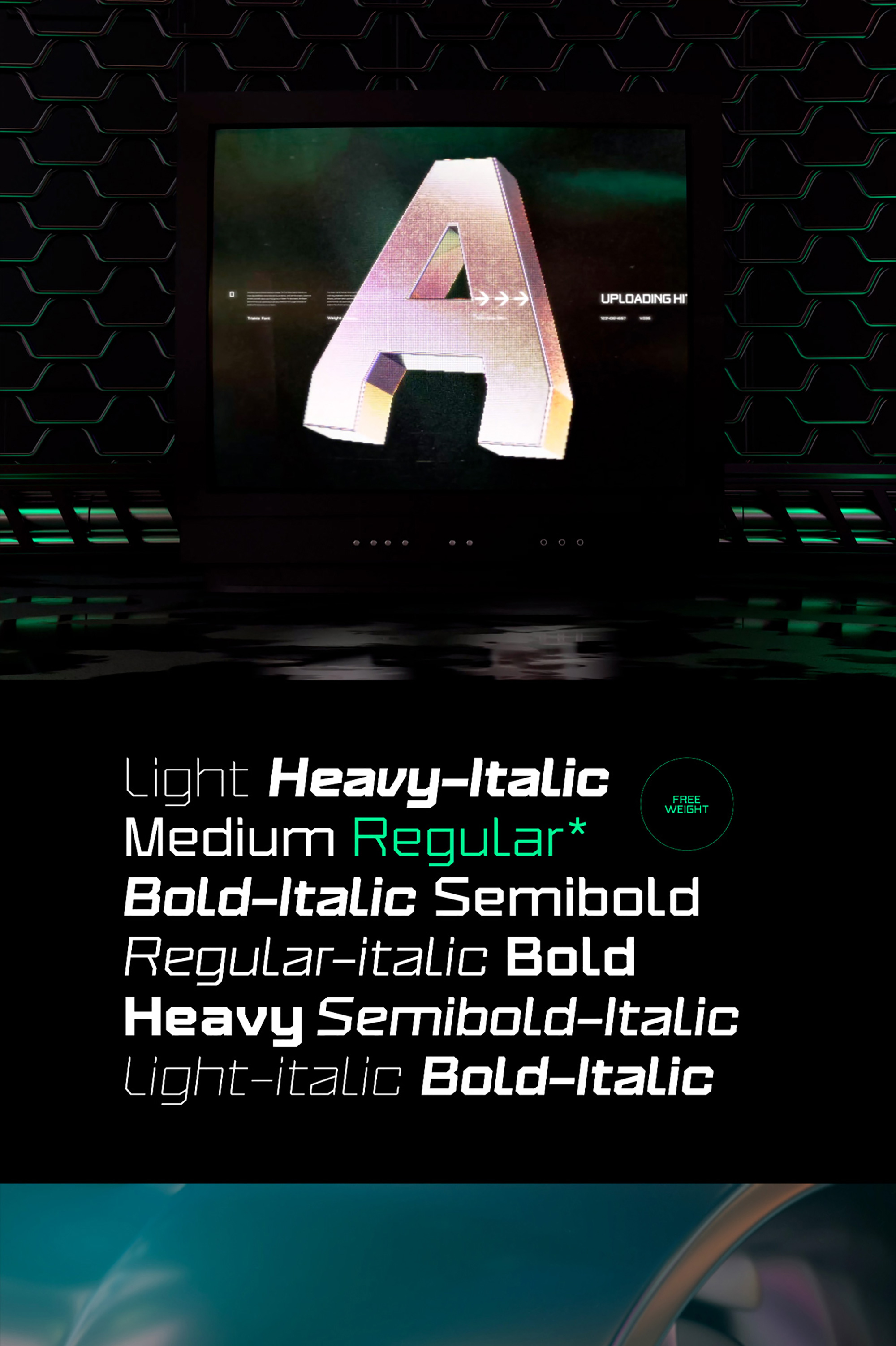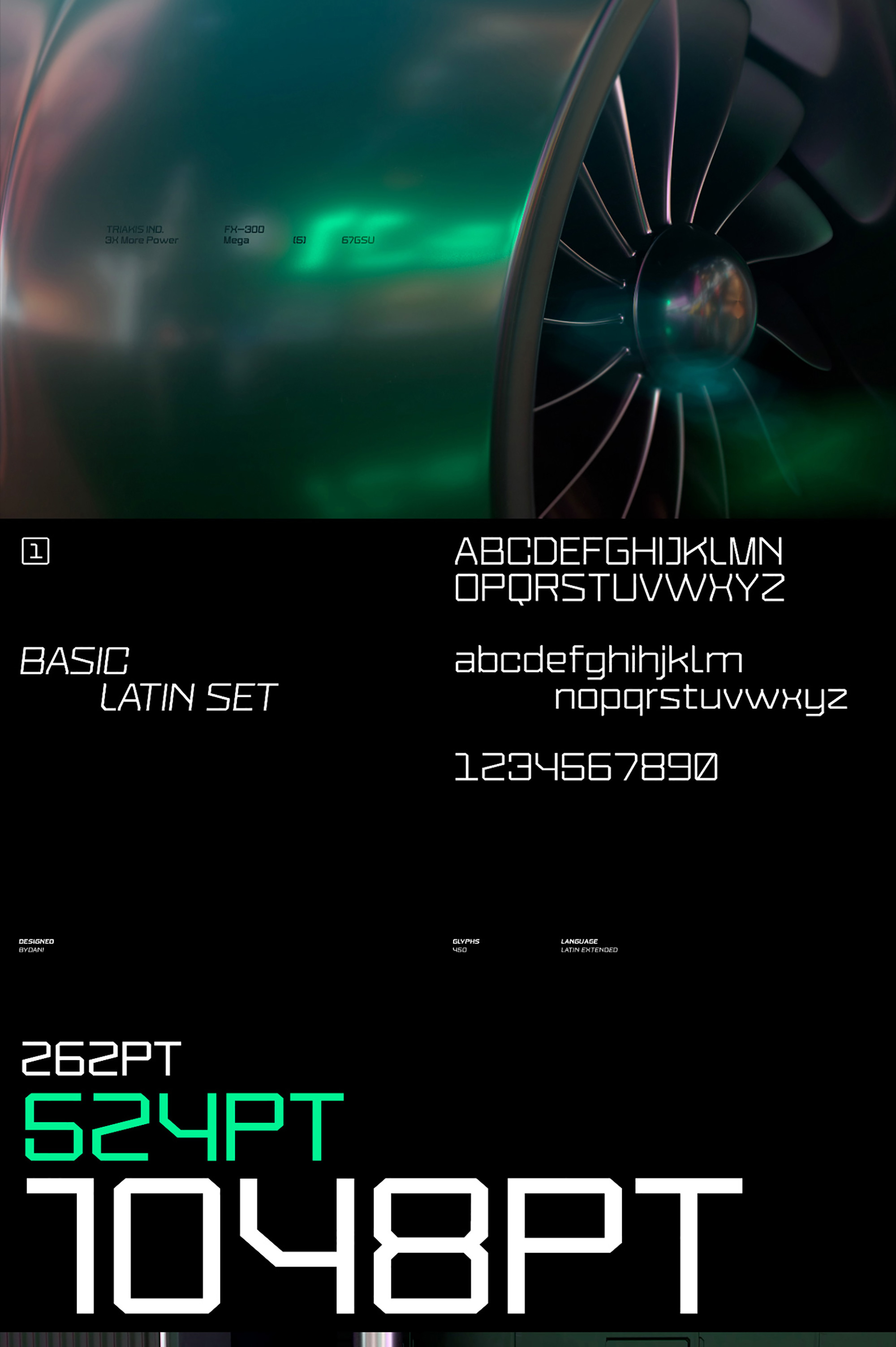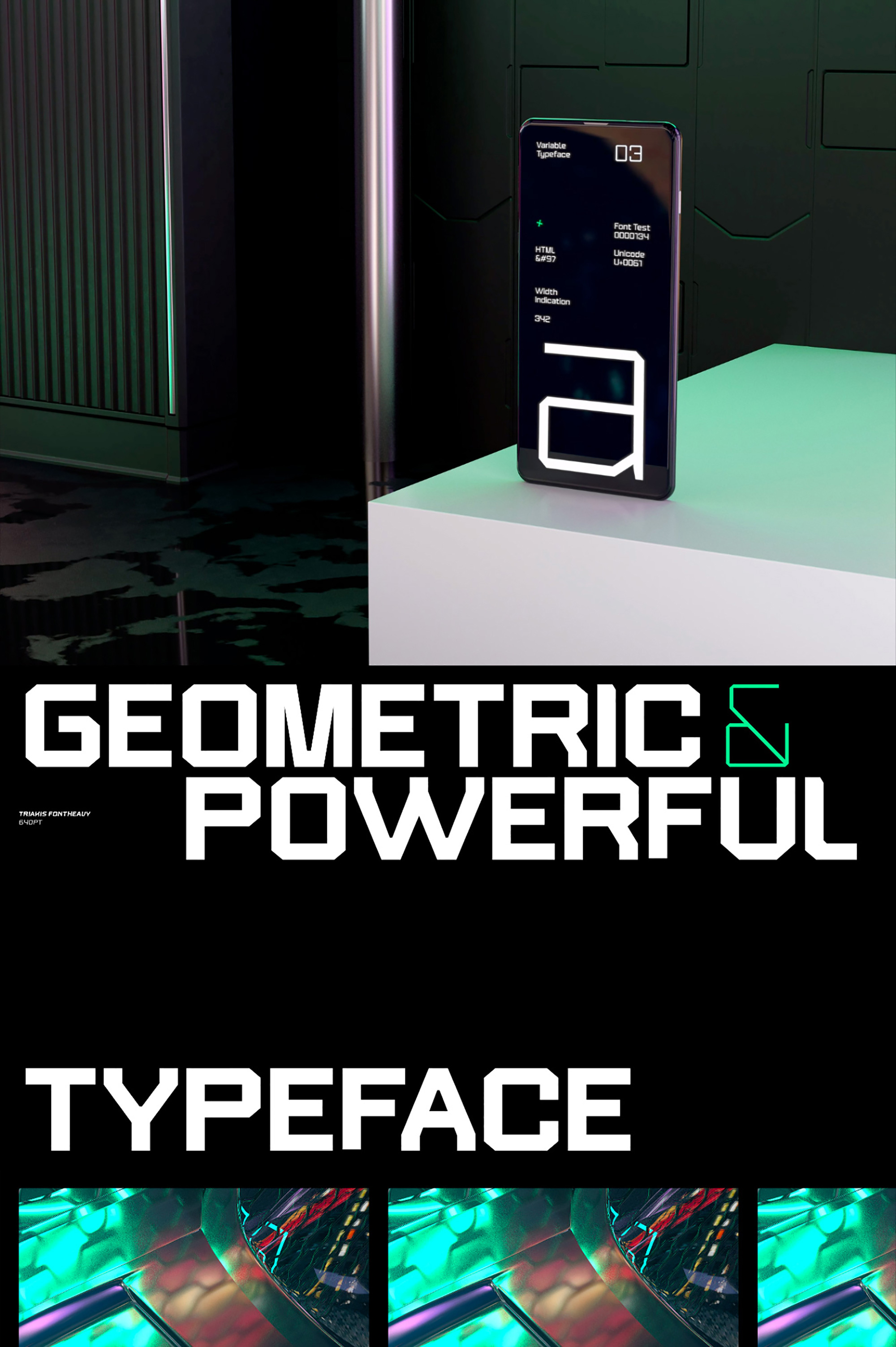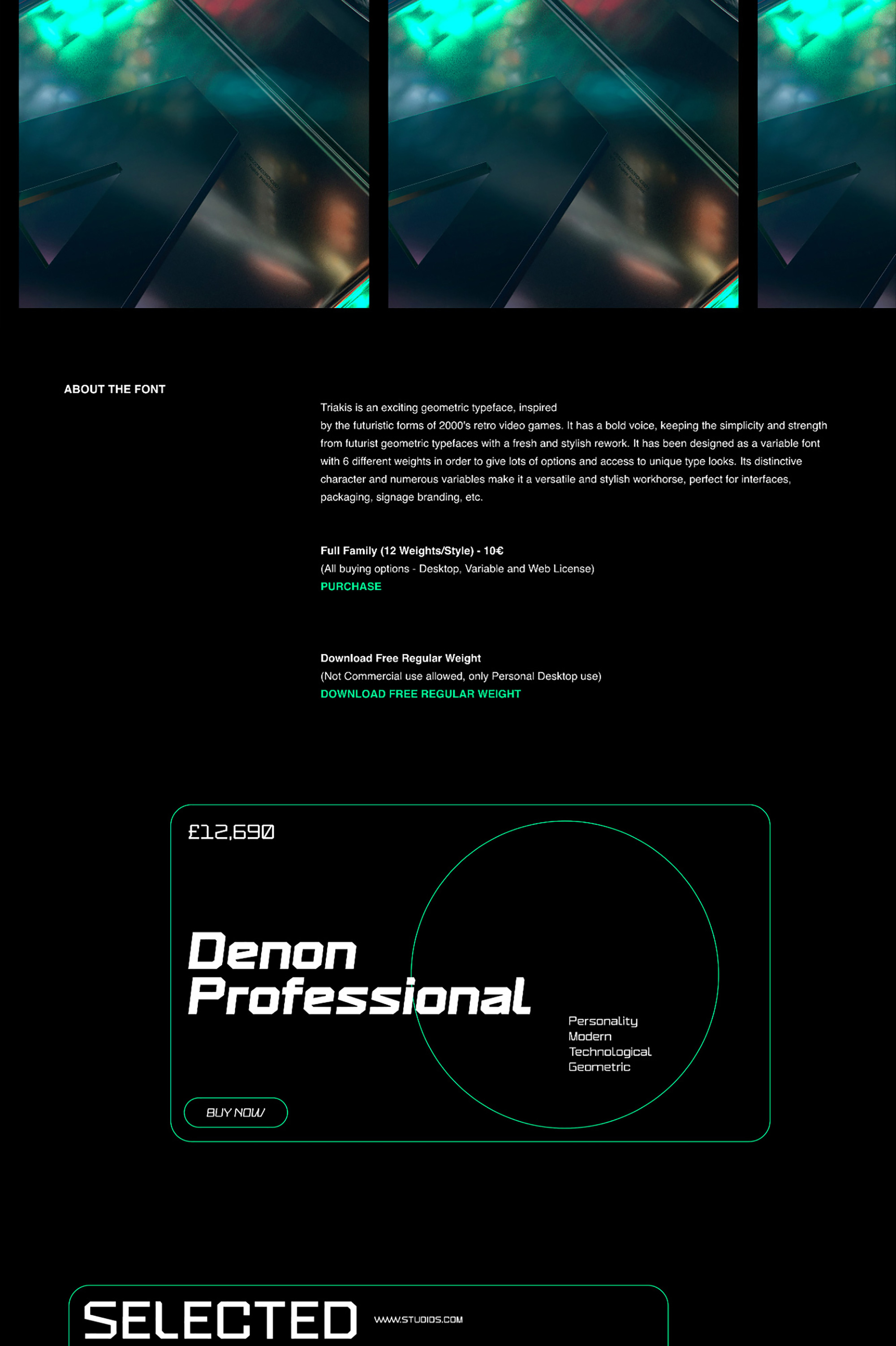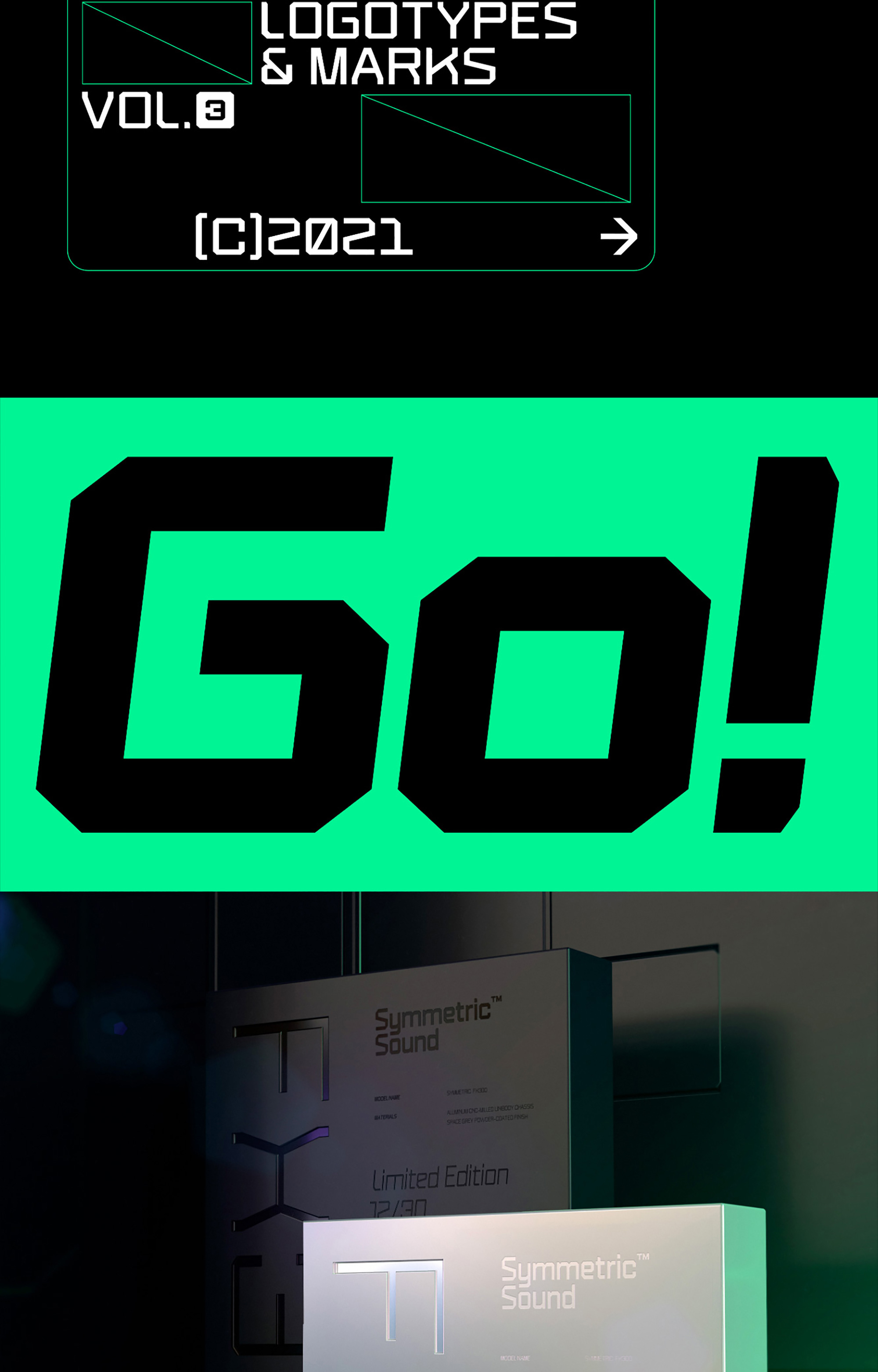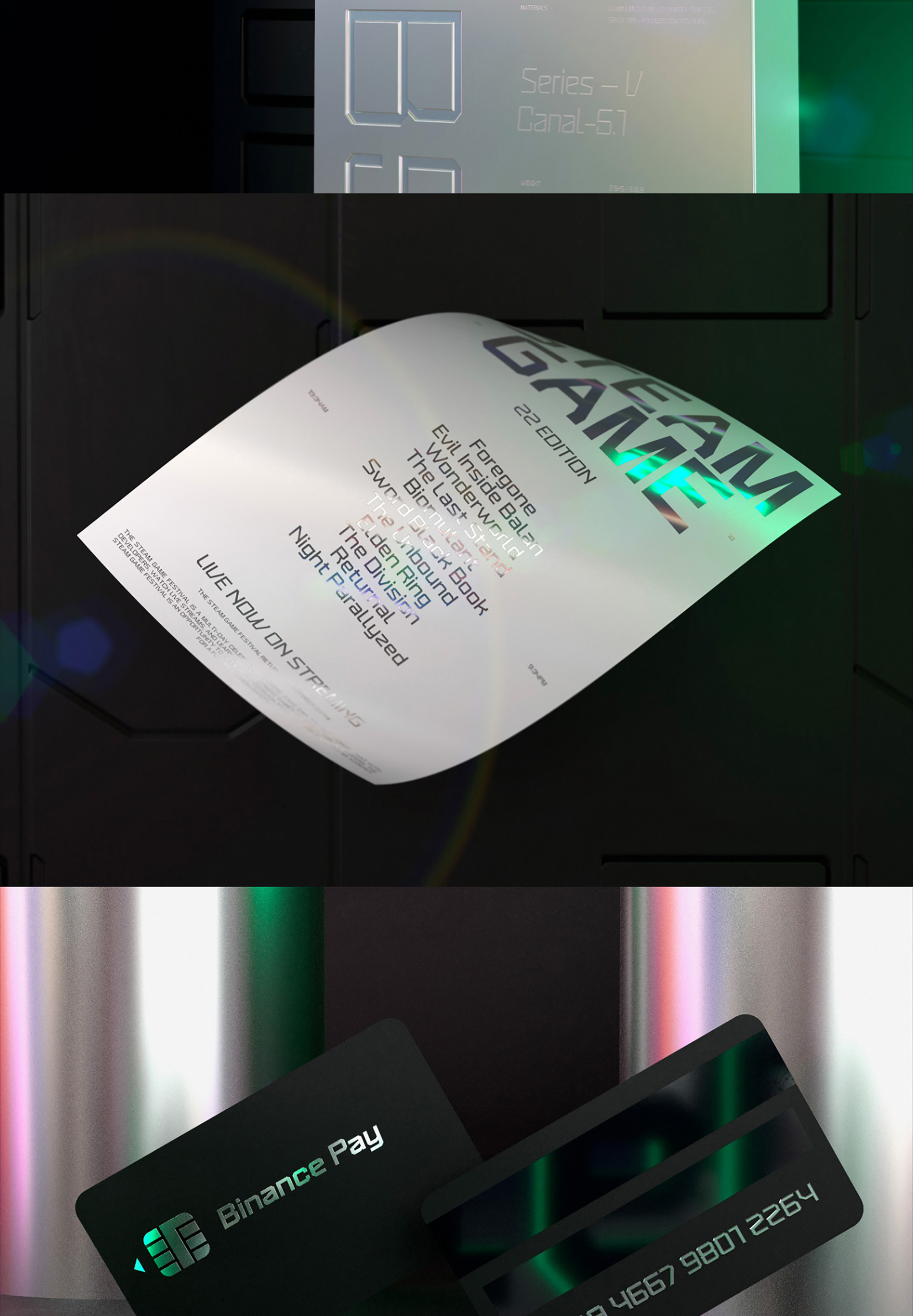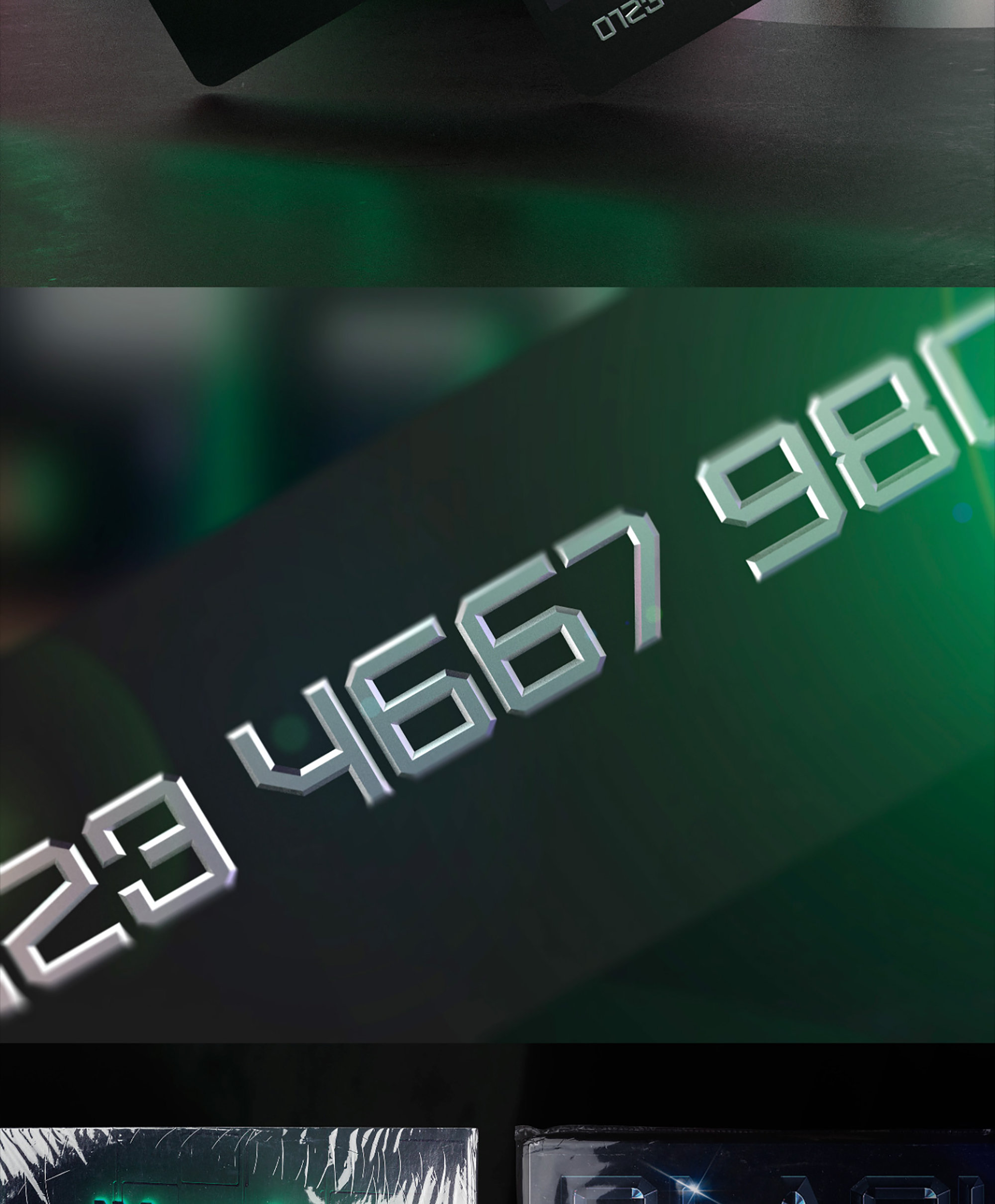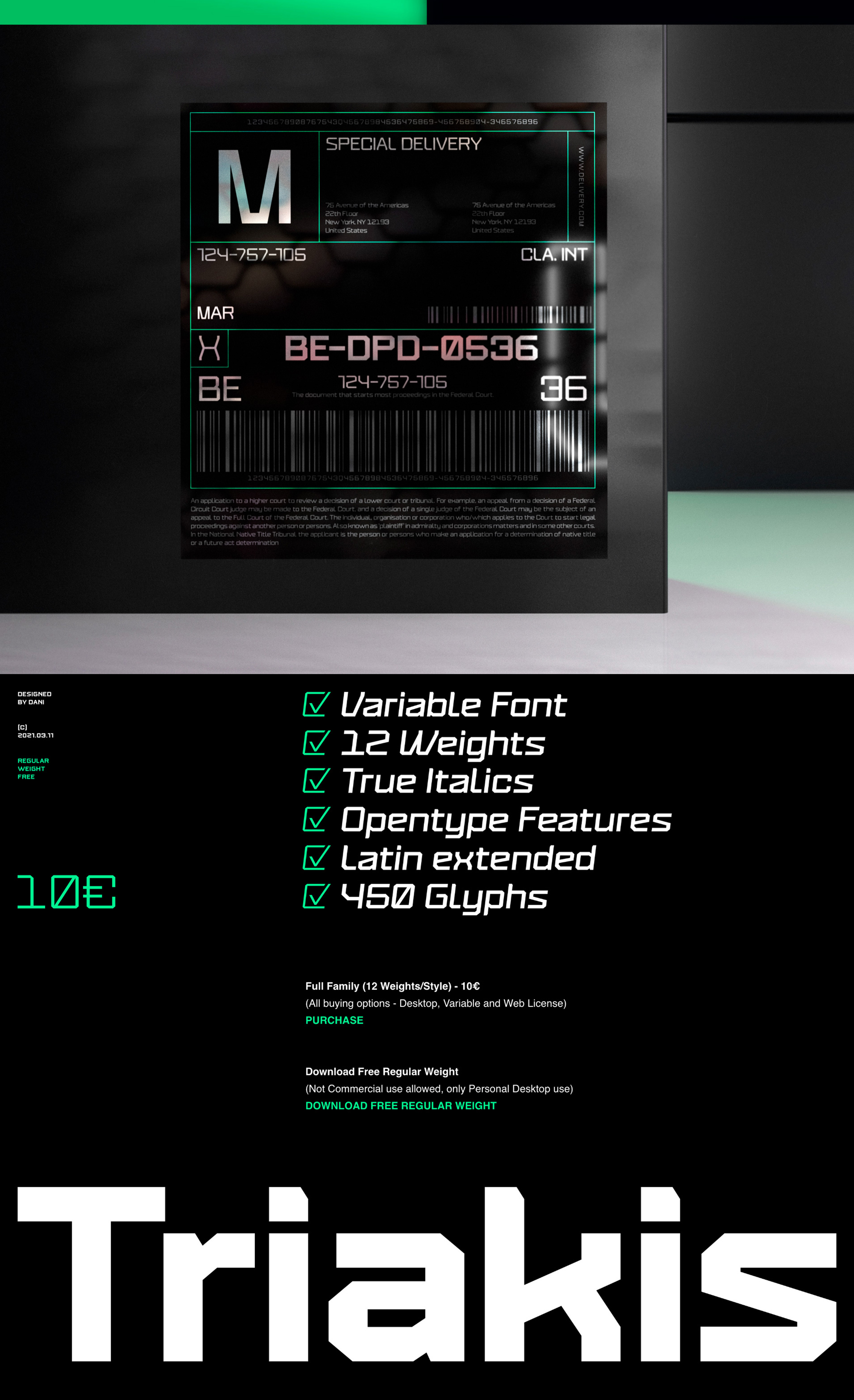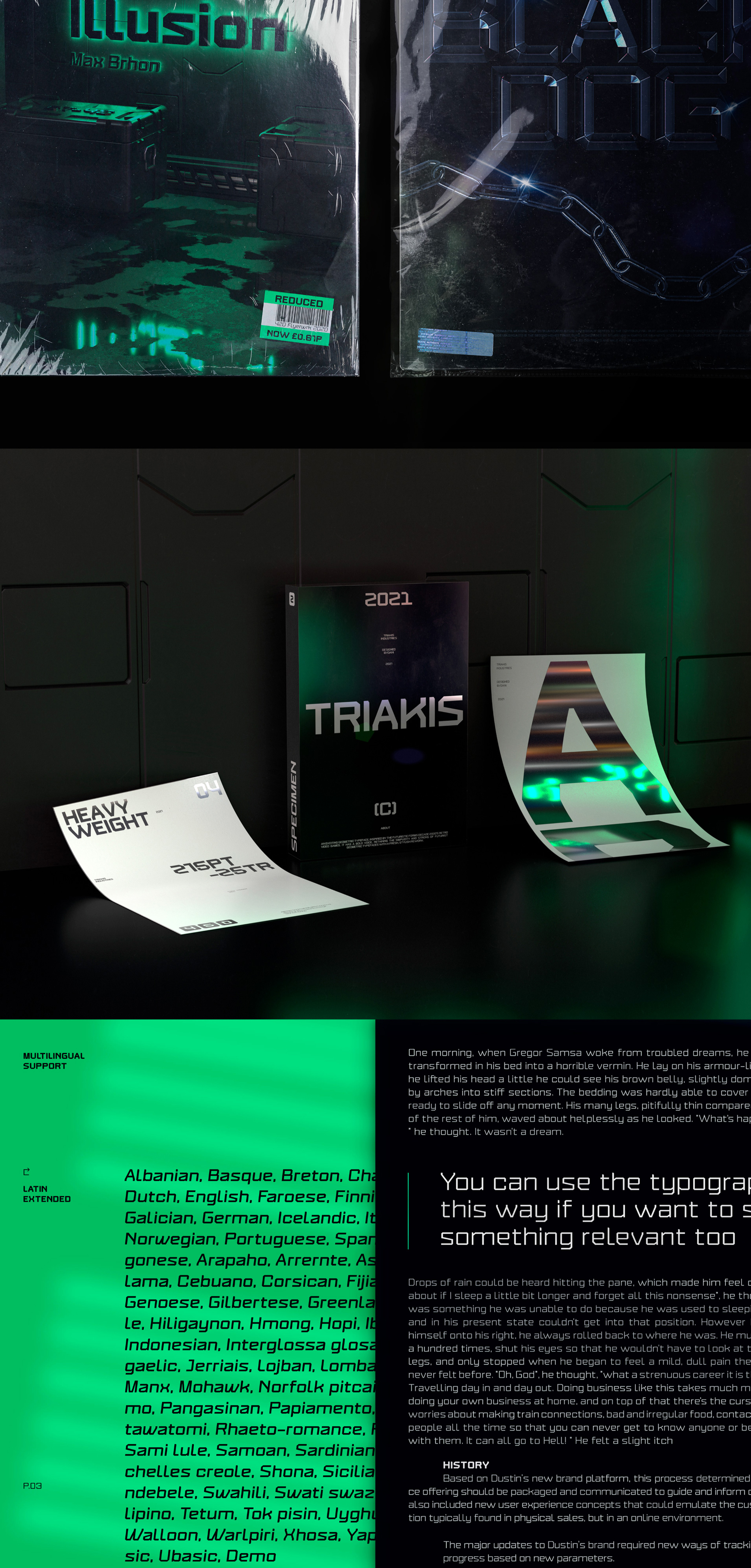
Triakis Font Family – Free Weight
Full version: https://bydani.gumroad.com/l/XdUgW Triakis Font Family – Free Weight is here! Triakis is an exciting geometric typeface that take inspiration from the futuristic forms of 2000’s retro video games. It has a bold voice, keeping the simplicity and strength from futurist geometric typefaces with a fresh and stylish rework. It has been designed as a variable font with 6 different weights in order to give lots of options and access to unique type looks. Its distinctive character and numerous variables make it a versatile and stylish workhorse, perfect for interfaces, packaging, signage branding, etc.